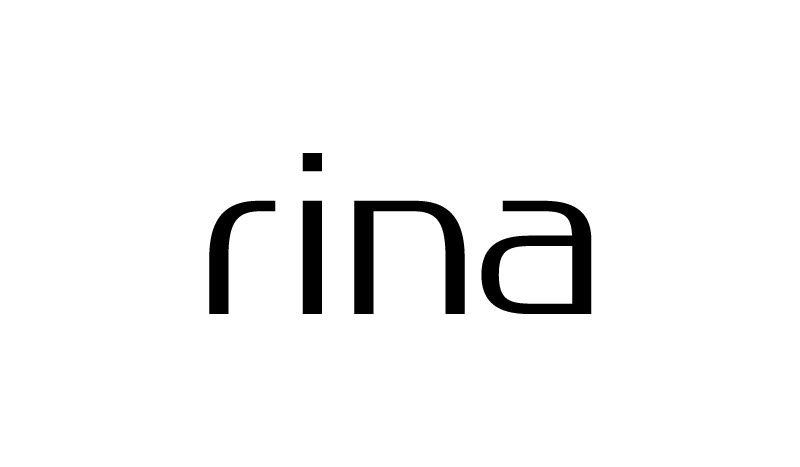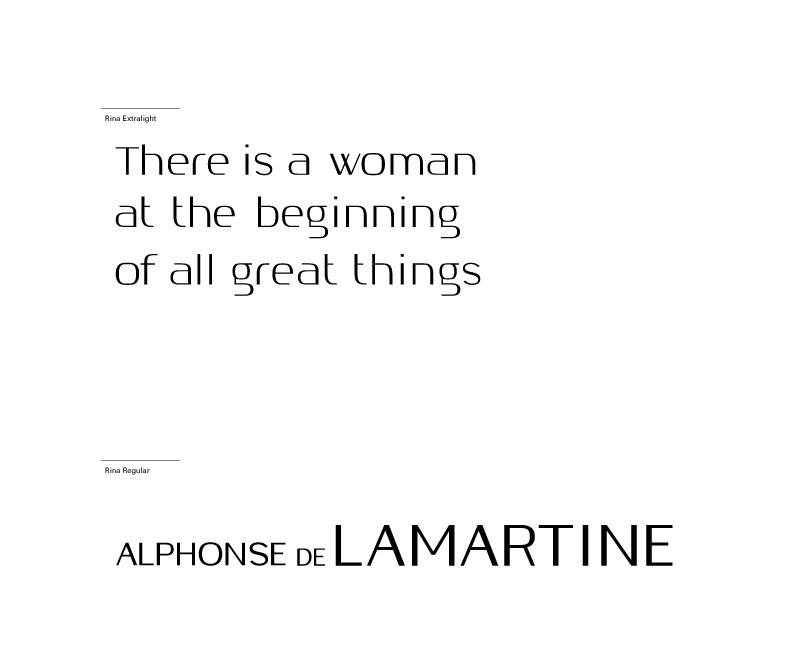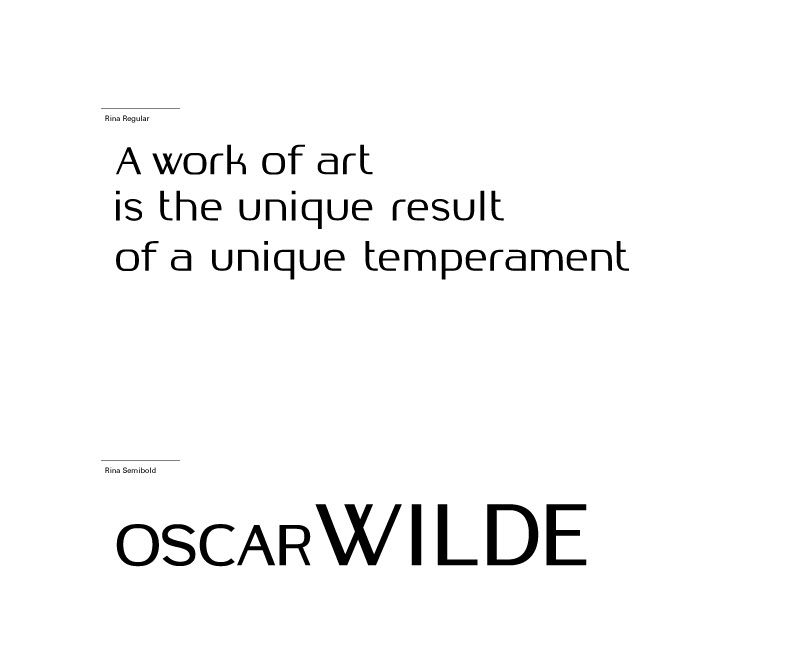
Rina typeface
The Rina was developed to be a clean, elegant, contemporary sans serif typeface family. The Rina structure establishes unique typographic language for publication and branding purposes. Rina follows more natural curves, creating a gentle, more feminine feel. The design is functional and coherent with absolute clarity.